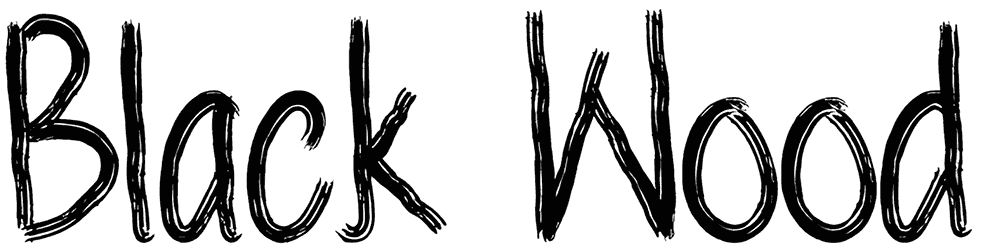
Black Wood Font
It is time to meet Black Wood, a hand-drawn brush font with a unique face. This wood font with tenuous, untidy lines has a modern and casual mood. You can put Black Wood on a project that you are working such as children’s posters, game designs, nature backgrounds, and along with others.
I designed this font with good and balanced graphics so that the use of the font will look good when composing paragraphs of sentences.
I designed this font with great care so that I guarantee that the quality has met the standards that